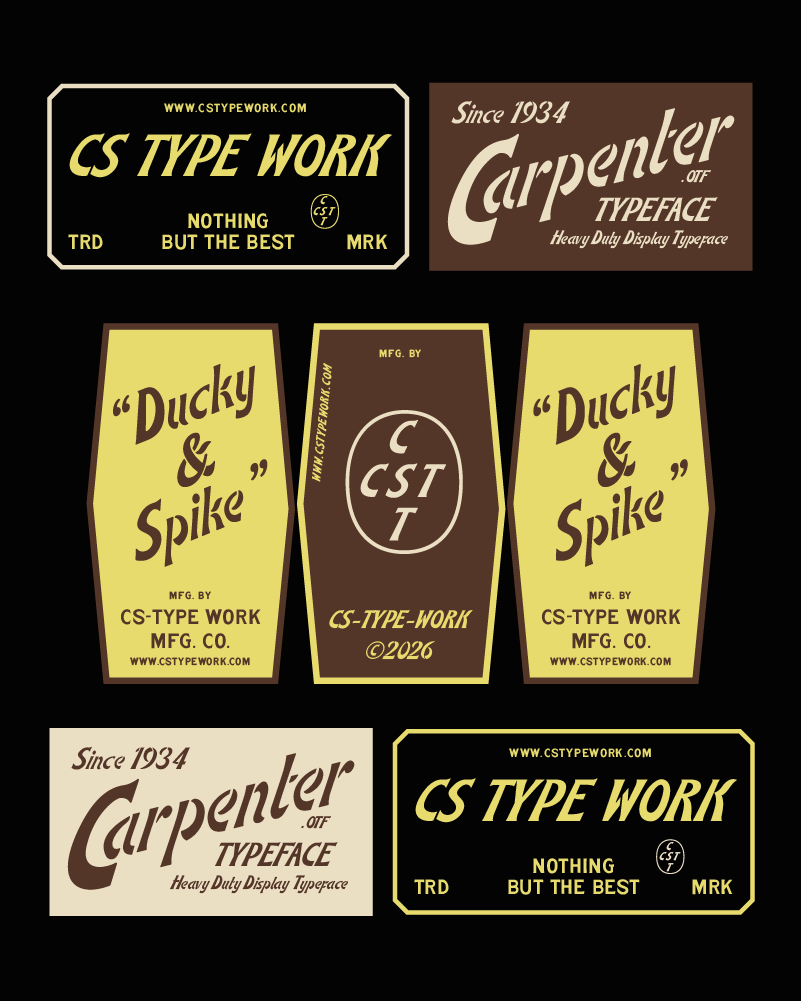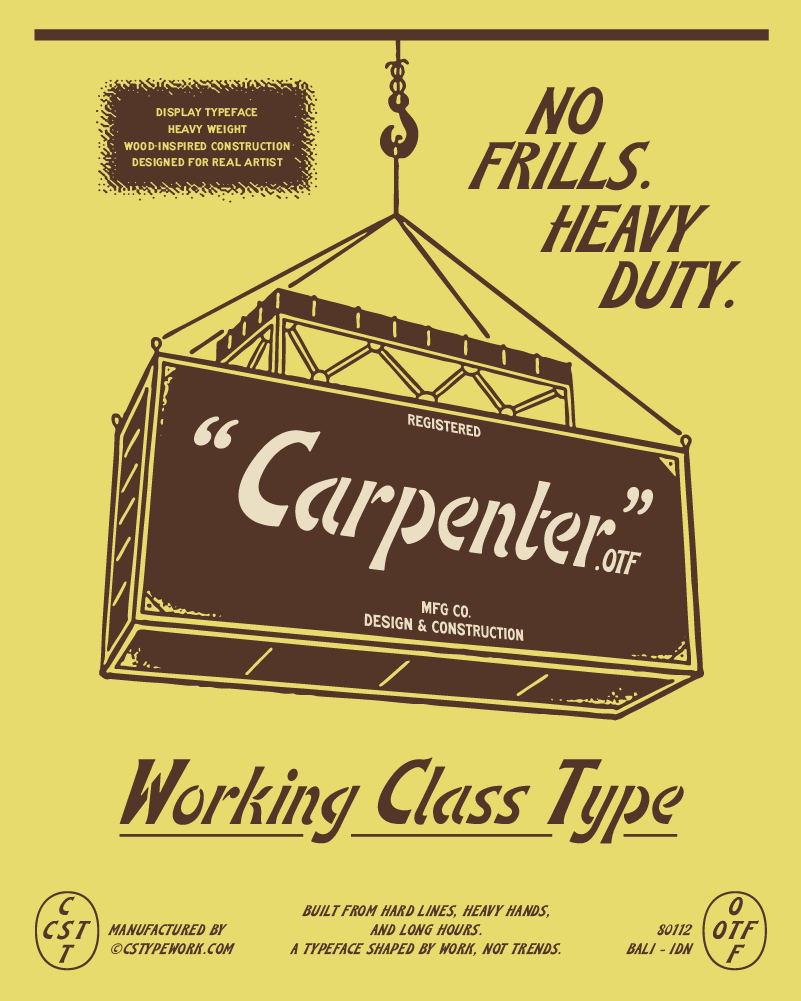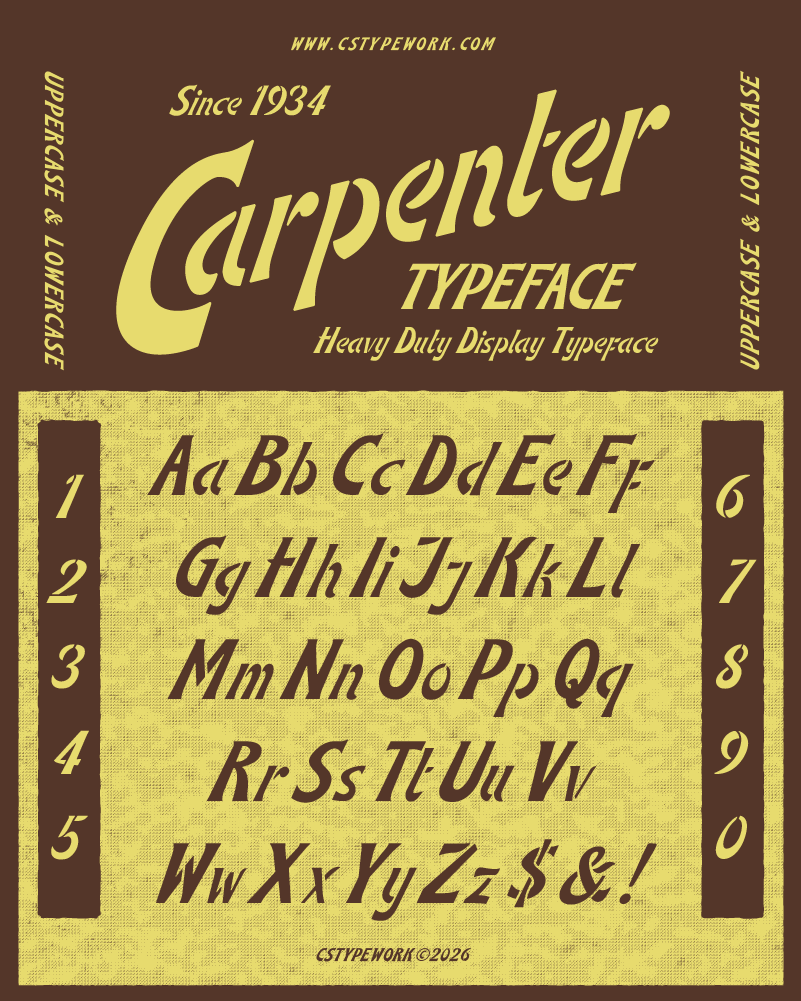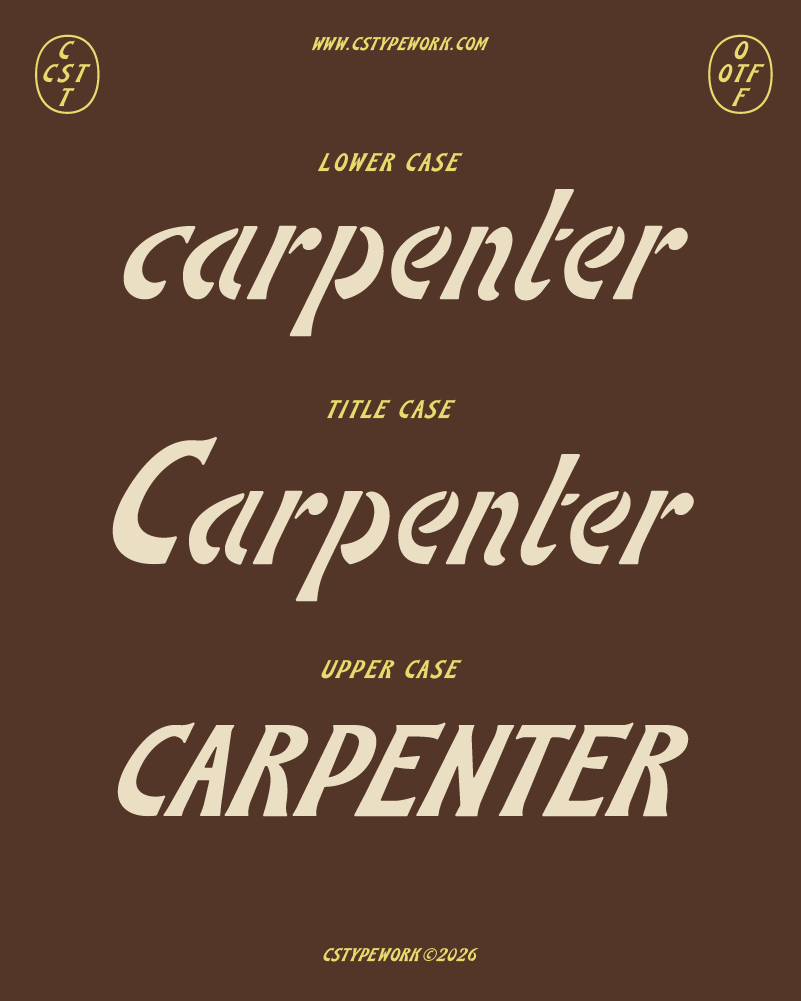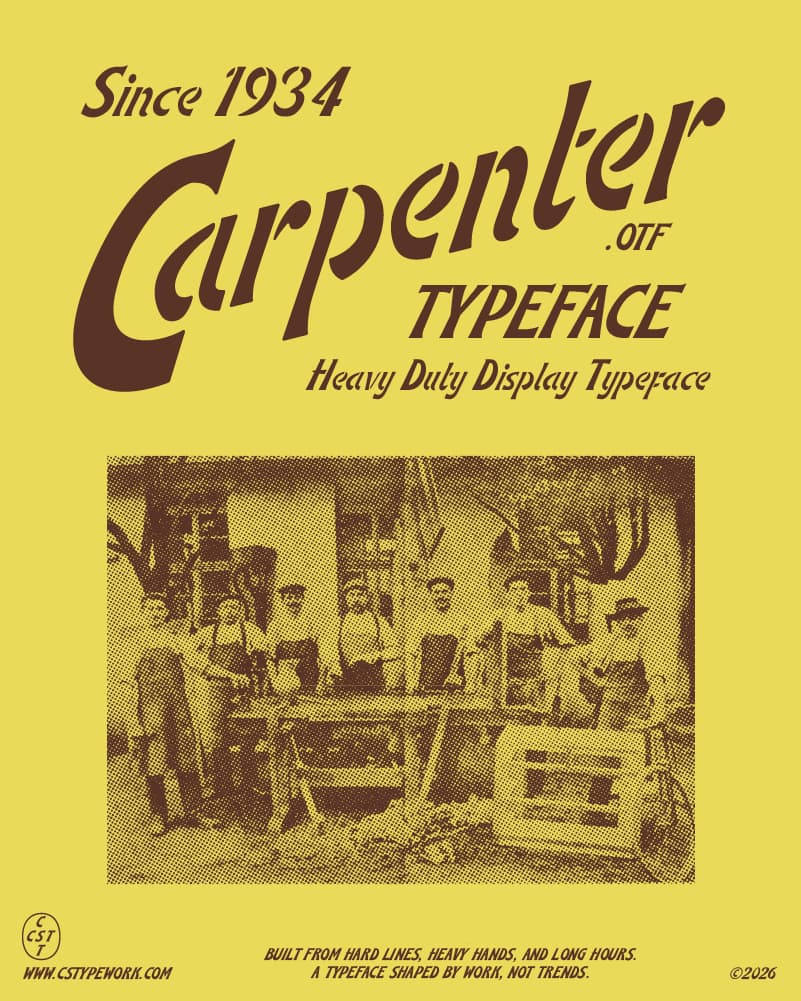
CARPENTER CST
CARPENTER CST is a display typeface inspired by traditional woodworking and the honest spirit of working-class craft. Think sawdust in the air, tools on the bench, and the quiet pride of building something that lasts.
The letterforms are sturdy, grounded, and full of handmade warmth—like they’ve been cut, shaped, and sanded by a steady pair of hands.
Perfect for workshop brands, outdoor labels, packaging, posters, badges, and any design that celebrates craft and honest work.
Made for who appreciate grit, heritage, and the beauty of getting their hands dirty.
When your design needs a little muscle and a lot of character, CARPENTER is ready to clock in.